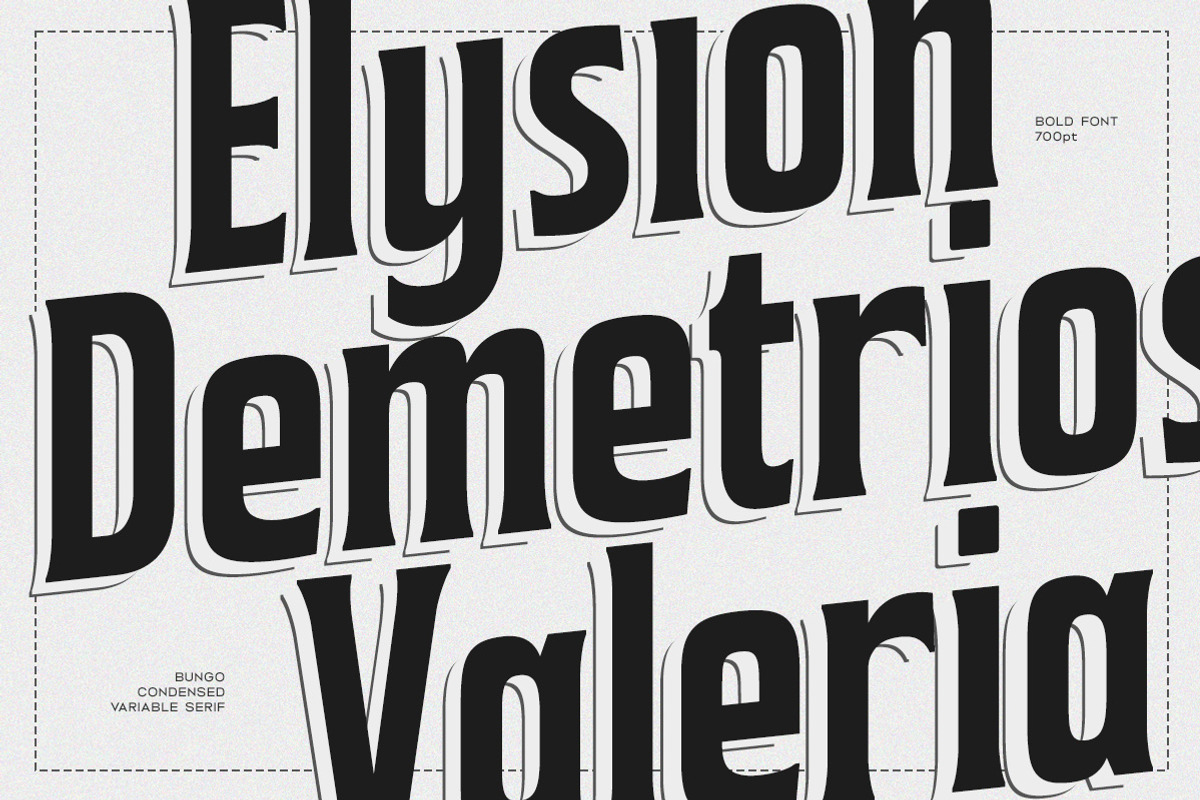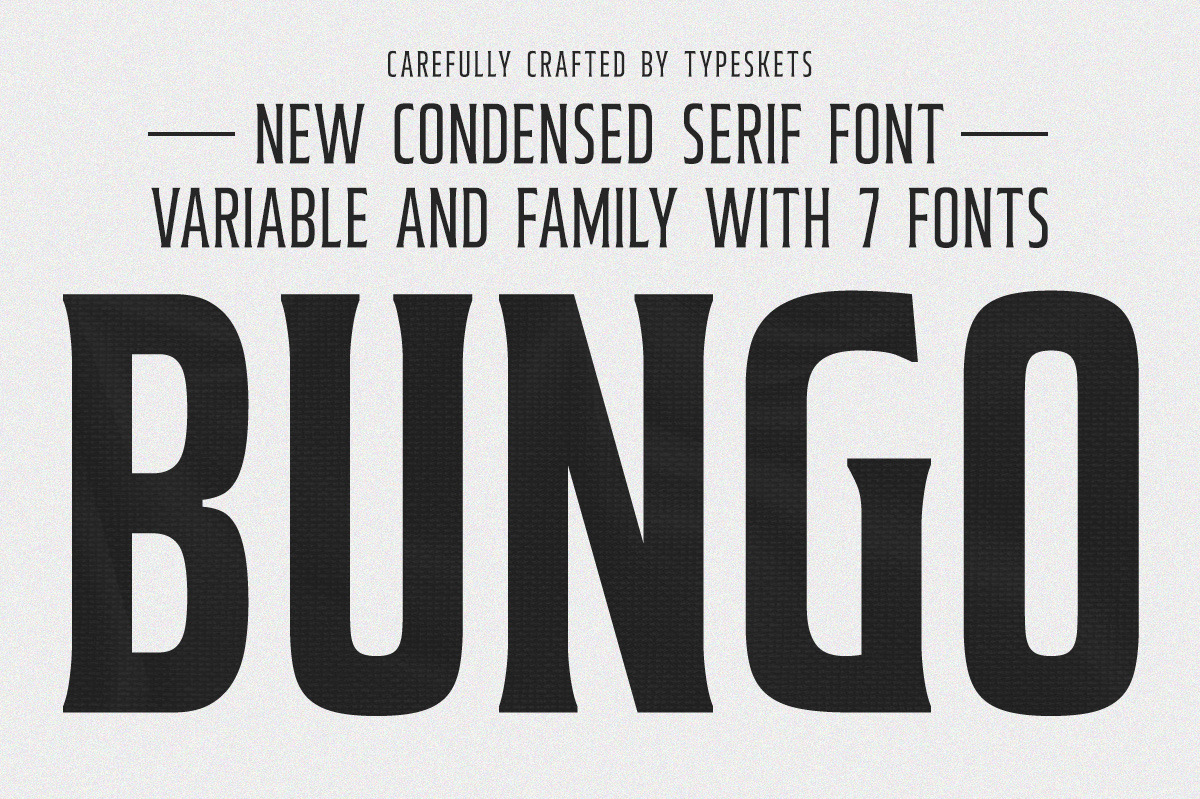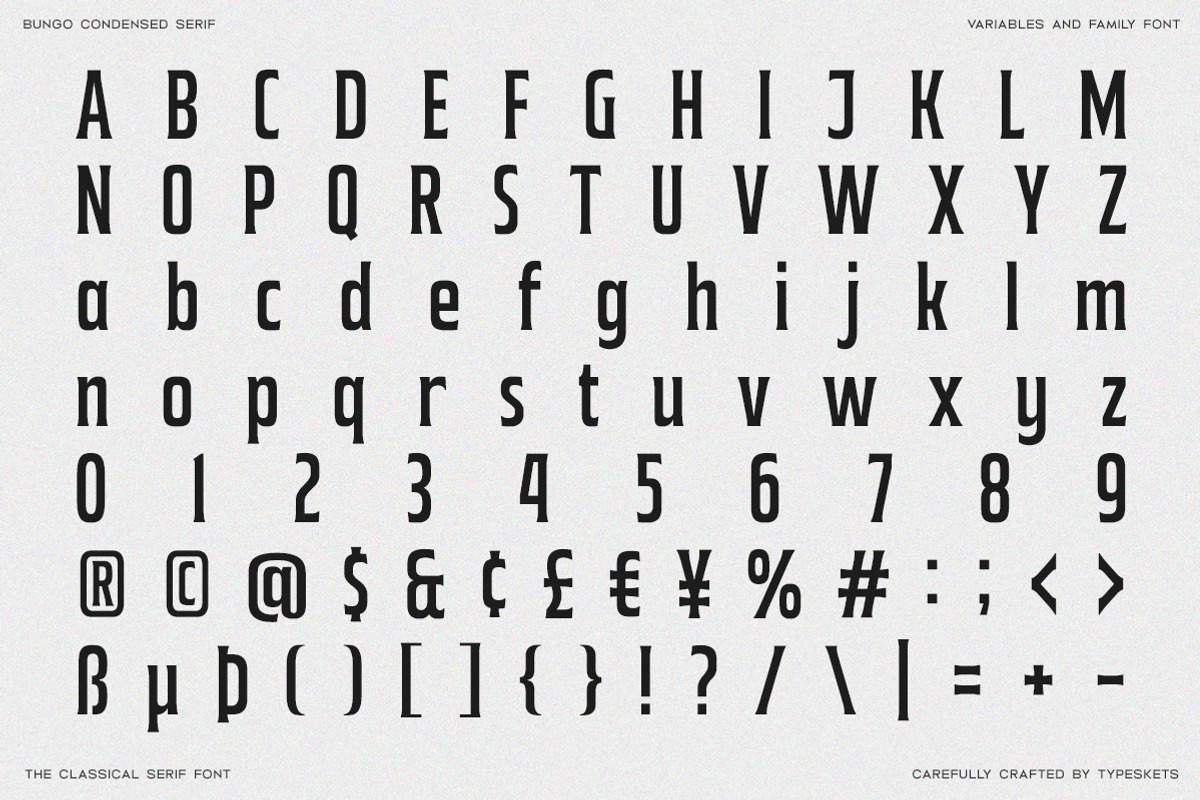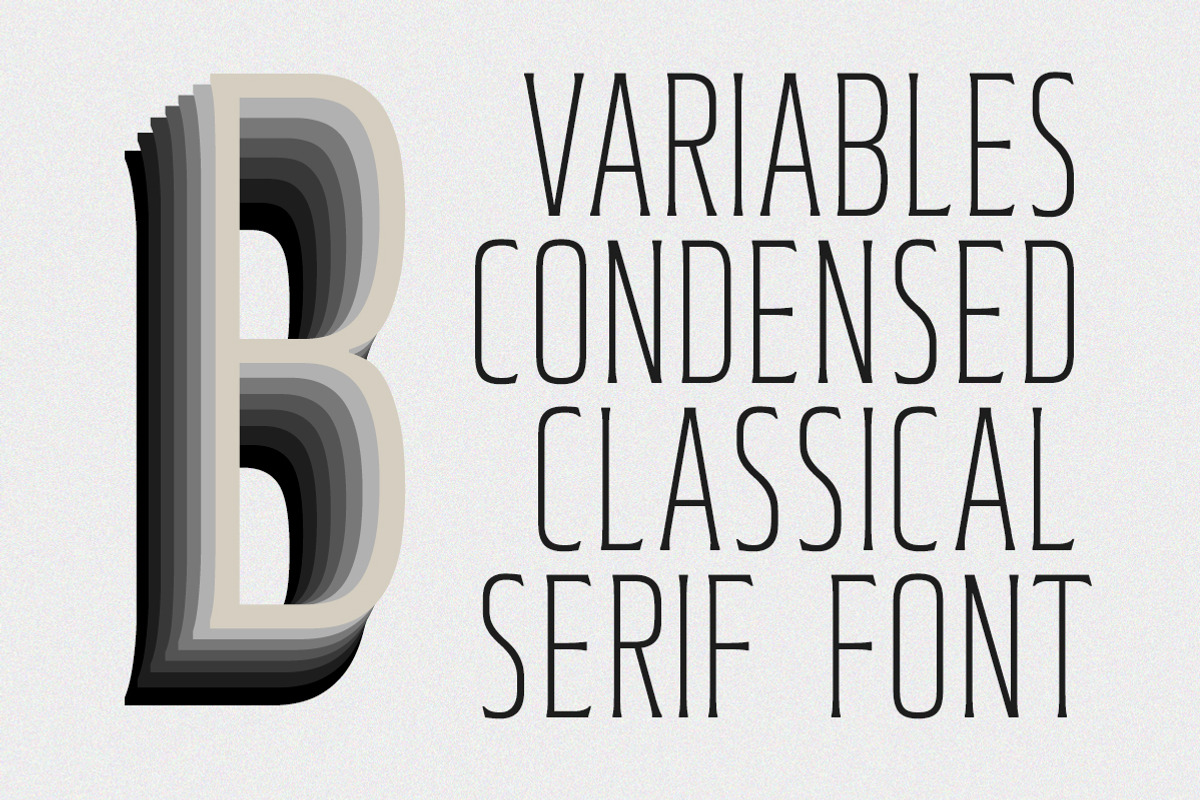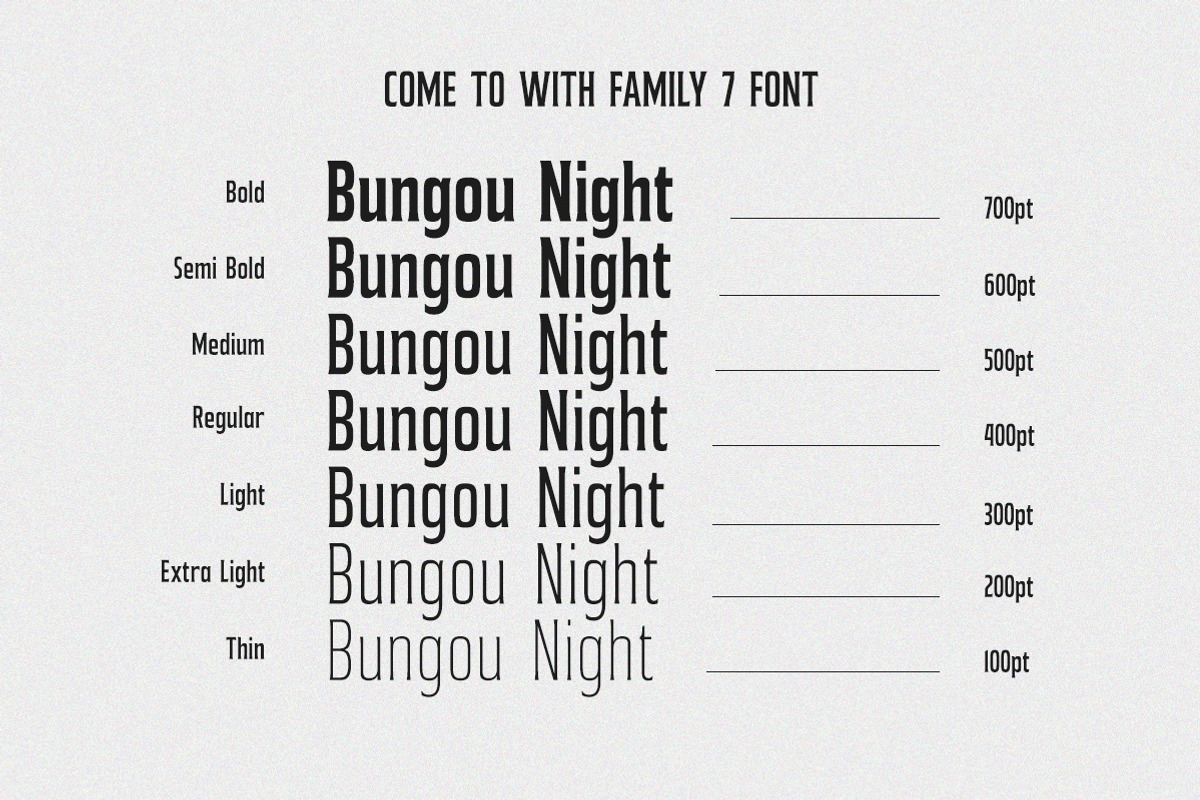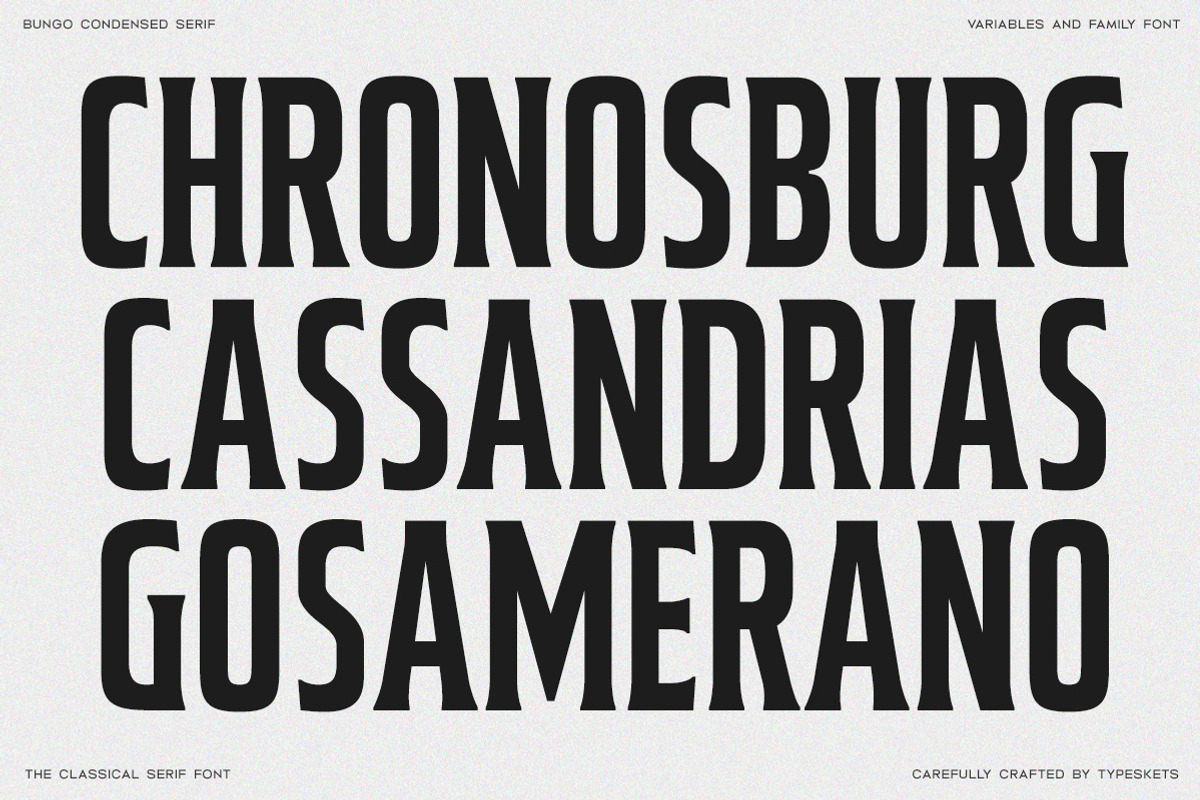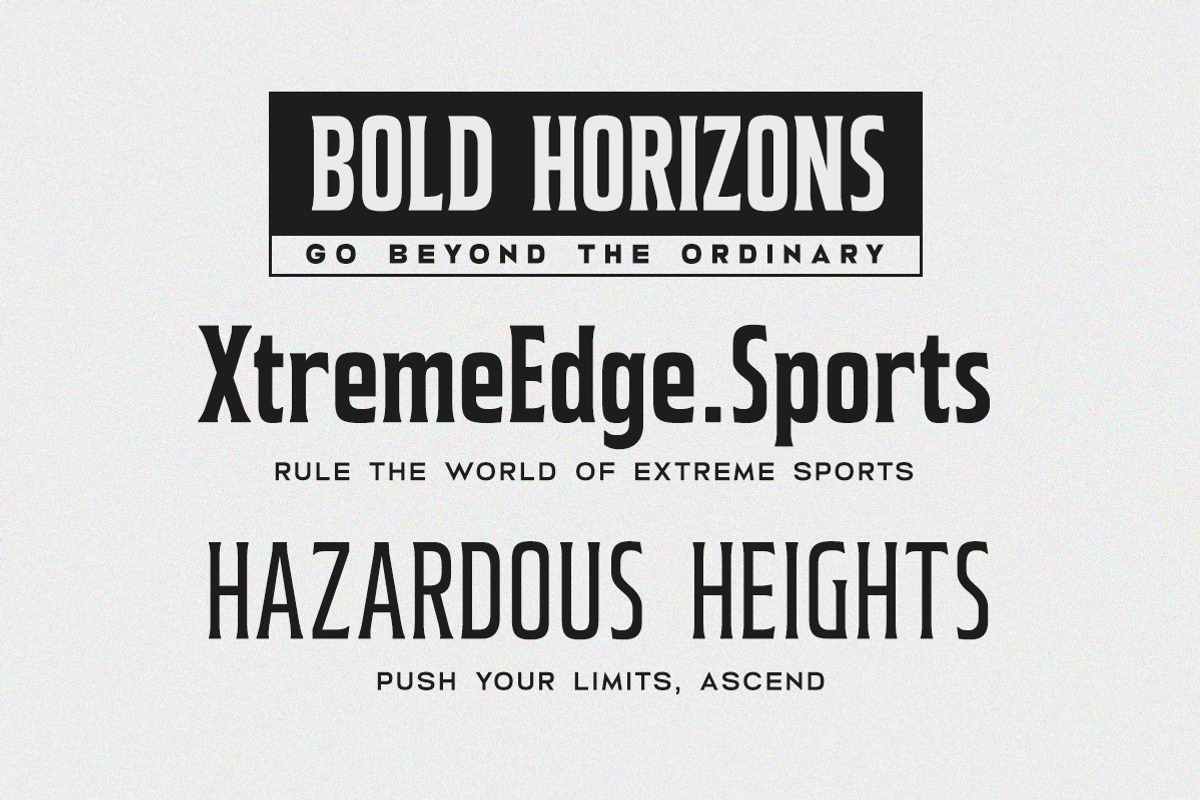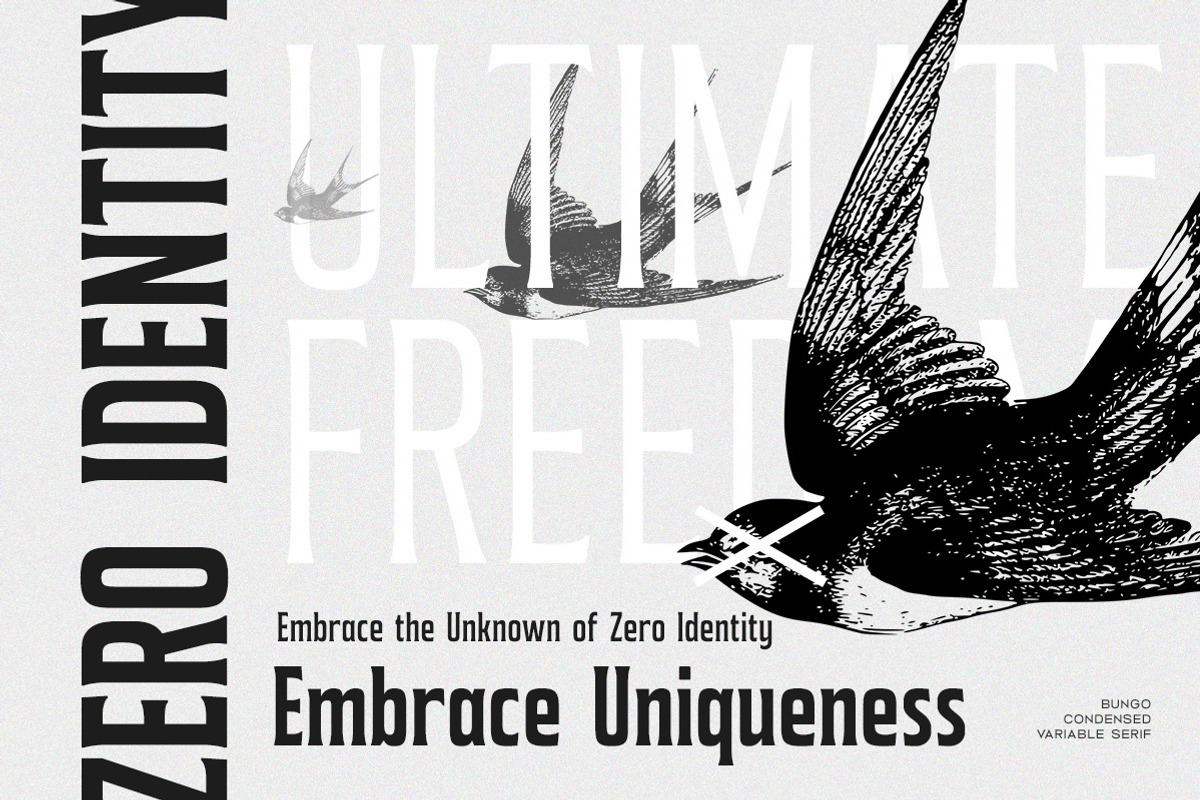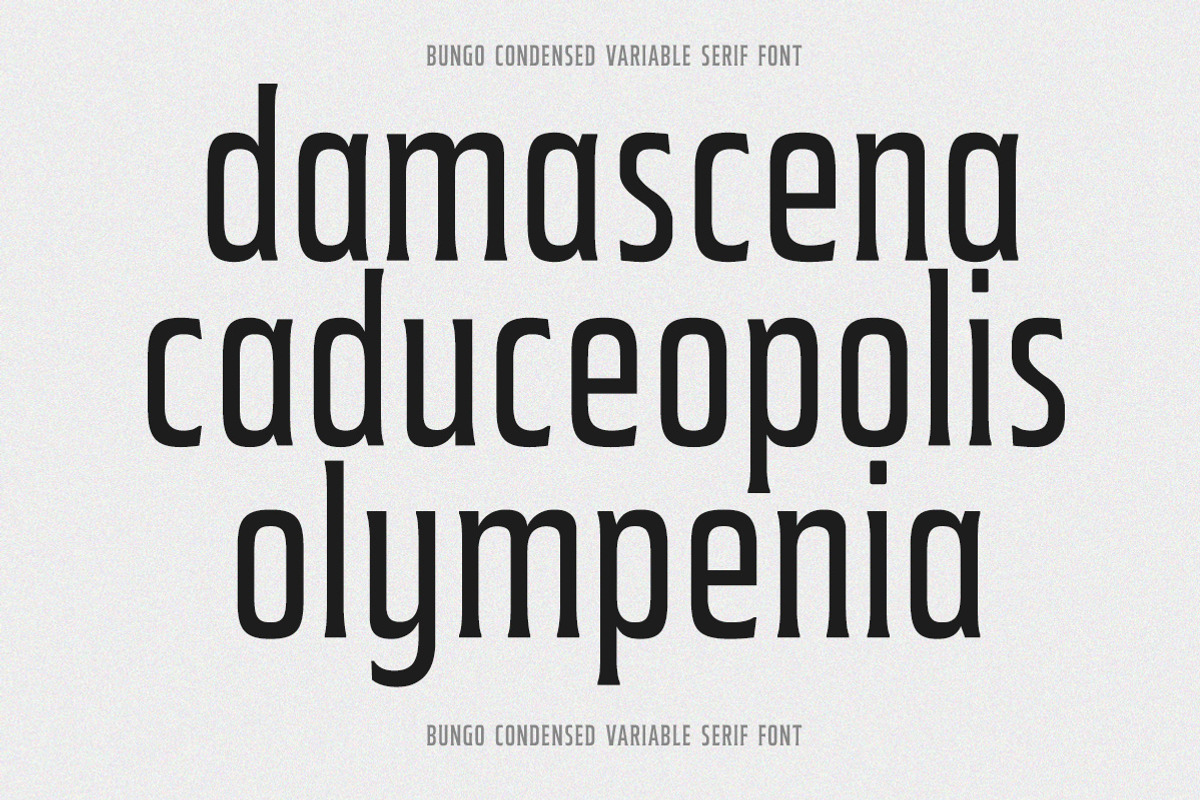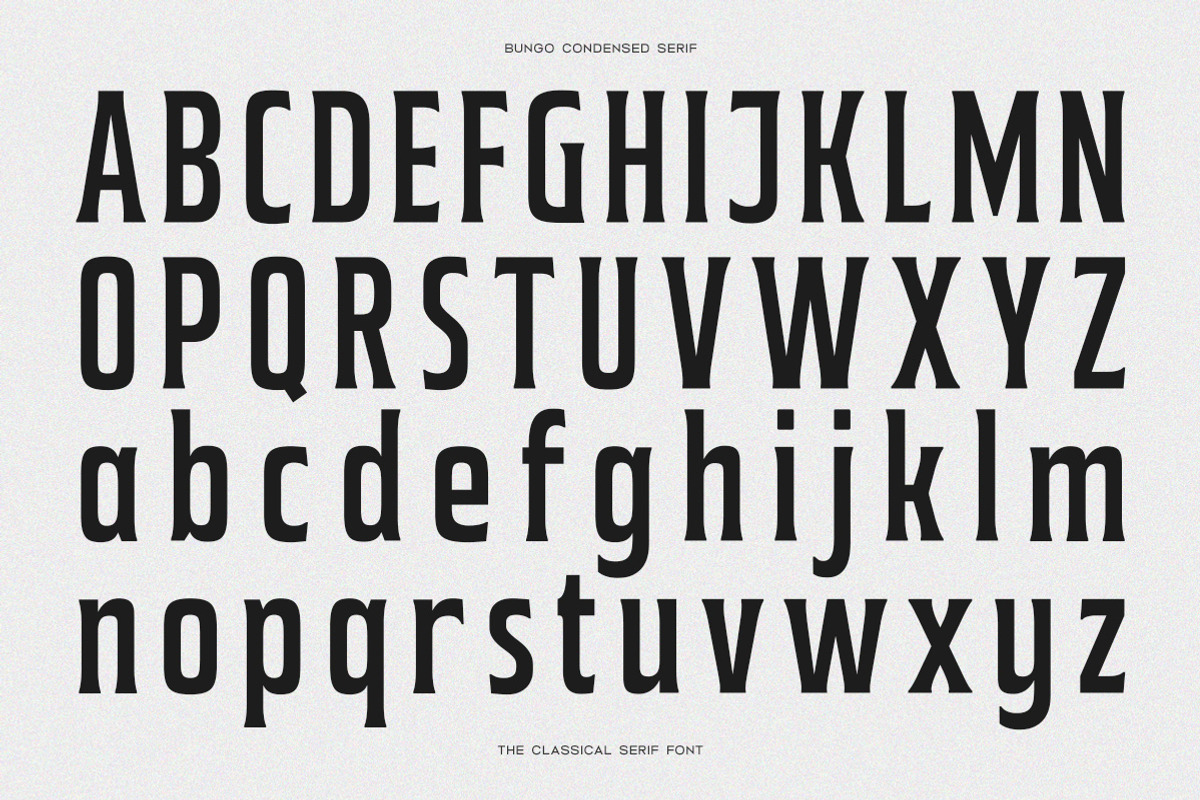
Bungo - Variable Condensed Font
Step into a world of timeless elegance with Bungo, a condensed serif font that blends classic sophistication with modern versatility. Designed for those who appreciate the finer details, Bungo offers a refined and elegant aesthetic, perfect for high-end branding, editorial design, and luxurious packaging.
Bungo's condensed form allows for efficient use of space without sacrificing readability, making it ideal for headlines, titles, and any design that demands attention. Its variable nature provides a dynamic range of weights and styles, giving you the flexibility to tailor your typography to any project with ease.
- Variables Font Available
- Family 7 FONTS : THIN | EXTRA LIGHT | REGULAR | MEDIUM | SEMI BOLD | BOLD